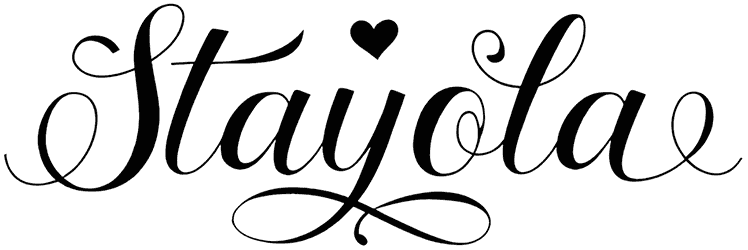
Stayola Font
By using Stayola, a calligraphy font with an overjoyed and lovely style, you can make your wedding invitations, Valentine’s Day designs, books, and presentations stand out from the crowd.
The Stayola font’s four unique styles not only make up for the lack of numerical letters but also lend an air of romance to your work. You can quickly improve the quality of your designs by browsing through our expanding collection of script fonts.